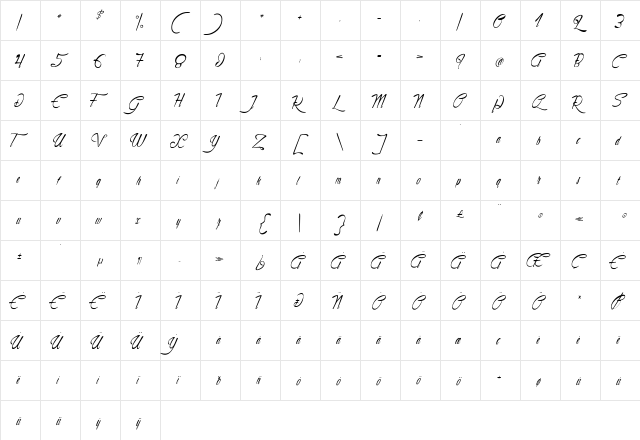
Ornament of Archaeological Regular
Design Context for Ornament of Archaeological Typeface
Ornament of Archaeological is built around its visual character rather than neutral utility — its distinctive forms are designed to make an impression at display sizes.
Font Pairing: Pair with a clean neutral sans-serif for body copy to let Ornament of Archaeological's character lead without overwhelming the composition.
Pro Tip: Use Ornament of Archaeological exclusively at display sizes — it was designed to be seen, not read at length. Let a neutral companion handle body copy.